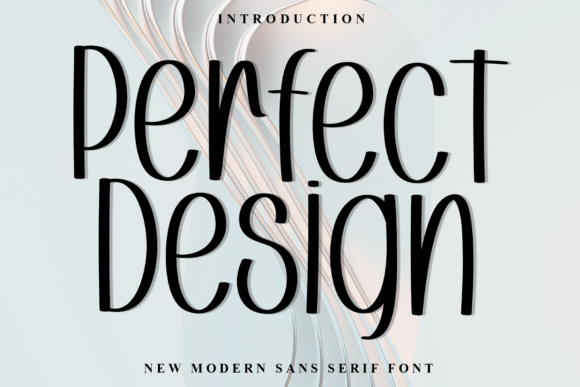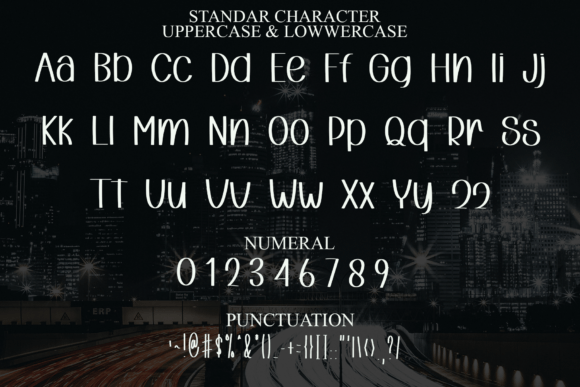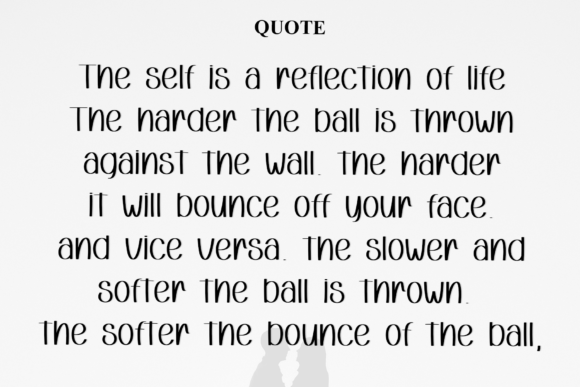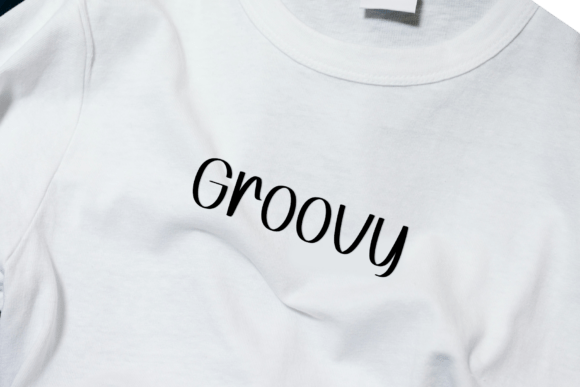
Perfect Design Font
About the Perfect Design Font
Meet Perfect Design Font, a stunning font that brings a touch of elegance and professionalism to any design. Perfect Design is a casual and creative font that exudes warmth and friendliness. Its round, playful strokes create a relaxed and approachable feel, perfect for personal projects, invitations, and social media graphics. The font’s charming, hand-drawn aesthetic adds a fun and unique touch to any design.
Perfect Design Font excels in headlines, short text blocks, and branding applications where a friendly, approachable feel is desired. It works well for logos, social media posts, invitations, and packaging for products targeting a younger or family-oriented demographic. However, its casual nature makes it less suitable for body text, lengthy paragraphs, or applications requiring high readability, such as UI or technical documentation.
Pairing Perfect Design with a clean sans-serif like Open Sans or Lato provides a strong contrast, balancing its playful energy with a sense of order. For a more sophisticated look, consider pairing it with a classic serif like Garamond or a slightly more modern serif like Playfair Display. Avoid pairing it with other highly stylized or decorative fonts to prevent visual clutter.
The overall personality of Perfect Design Font is cheerful and approachable, conveying warmth and approachability without being overly childish or simplistic. It’s ideal for brands that want to communicate a sense of fun and approachability, yet maintain a professional and polished image.
Perfect Design Font Usage Examples
Perfect Design Font Example